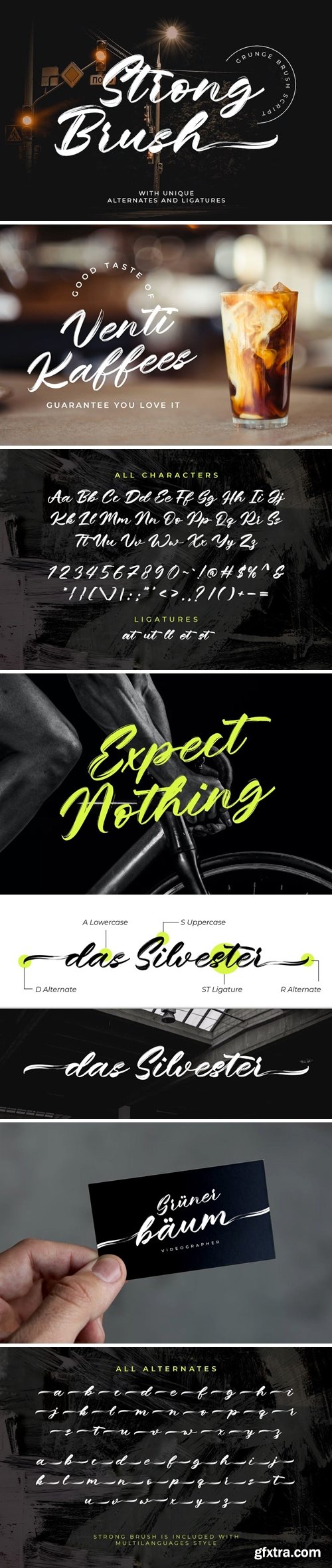
强刷广告字体
Strong Brush Advertisement Font
Strong Brush is a refined and adaptable handwritten logotype font. Its distinct and well textured letters make this font a work of art. Fall in love with its incredibly versatile style and use it to create amazing designs.